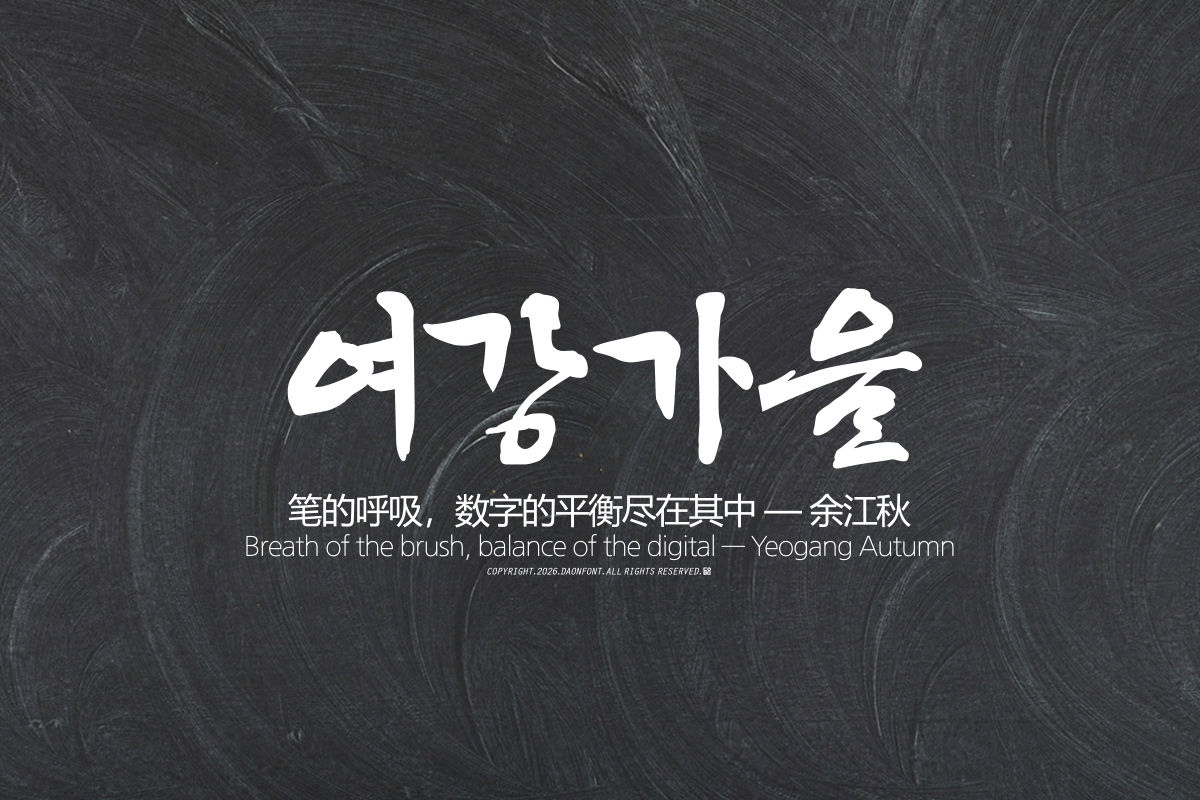
DAON YEOGANG GA EUL(B)
DaonFont 'YEOGANGGAEUL' is an emotional typeface based on the elegant strokes of traditional brush calligraphy, capturing the warmth and coziness of autumn in every single character. The natural and soft texture of the brush is evident in every stroke, allowing the atmosphere of autumn to gently seep into your heart the moment you see it.